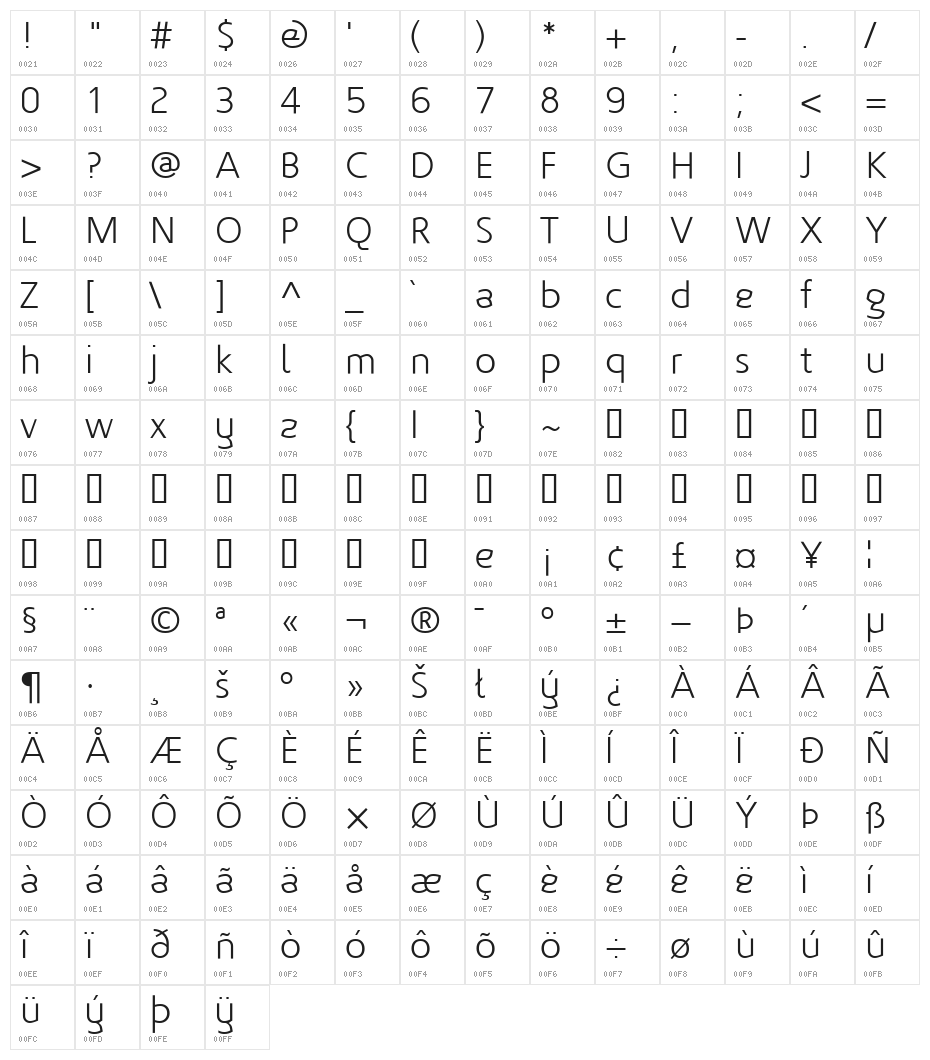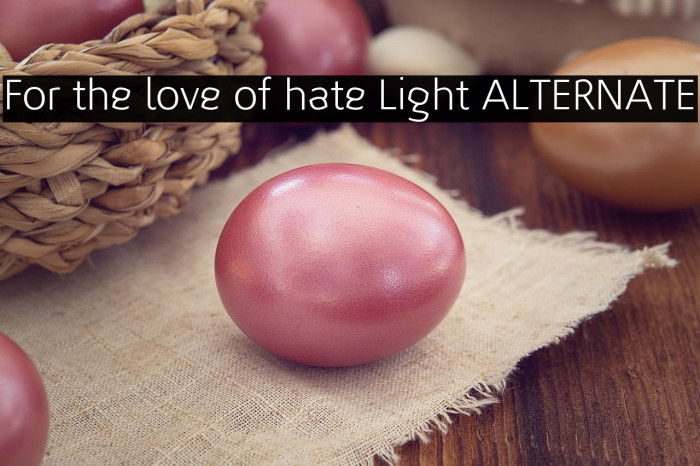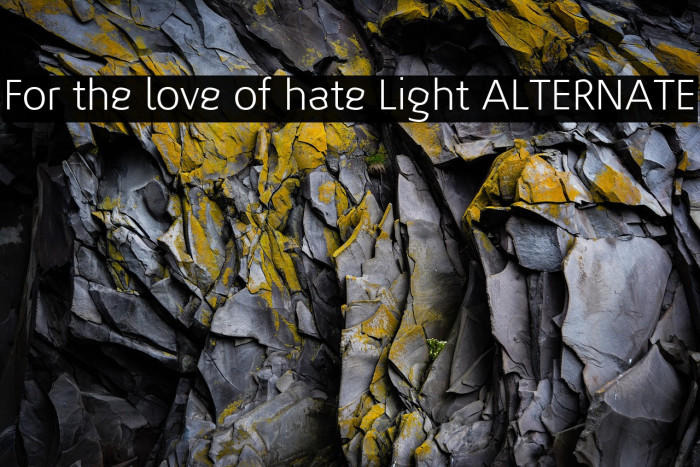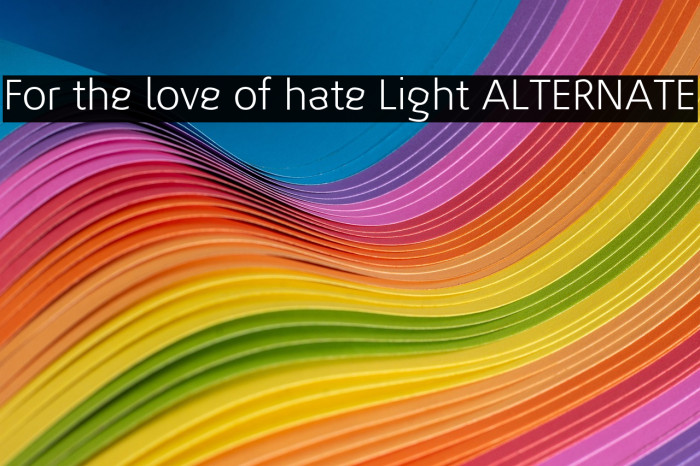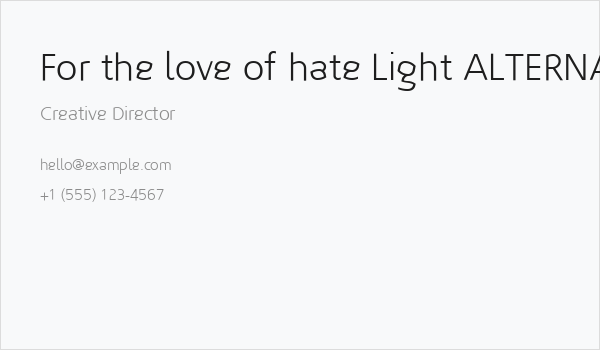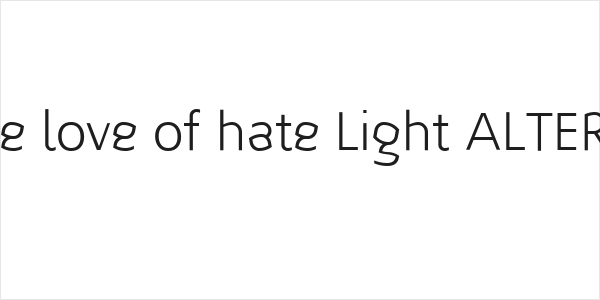
For the love of hate Light ALTERNATE Font
For the love of hate Light ALTERNATE Description
This font features a clean and modern sans-serif style with a light weight, making it ideal for minimalist designs. The characters are well-proportioned with a slightly condensed width, offering a sleek and contemporary appearance. The uppercase letters are uniform and straightforward, while the lowercase letters exhibit subtle curves, adding a touch of elegance. The numerals are clear and easy to read, maintaining consistency with the overall design. Special characters are included, enhancing its versatility for various applications.
| Proposed Projects | Ideal for branding, web design, and editorial projects where a modern and clean aesthetic is desired. |